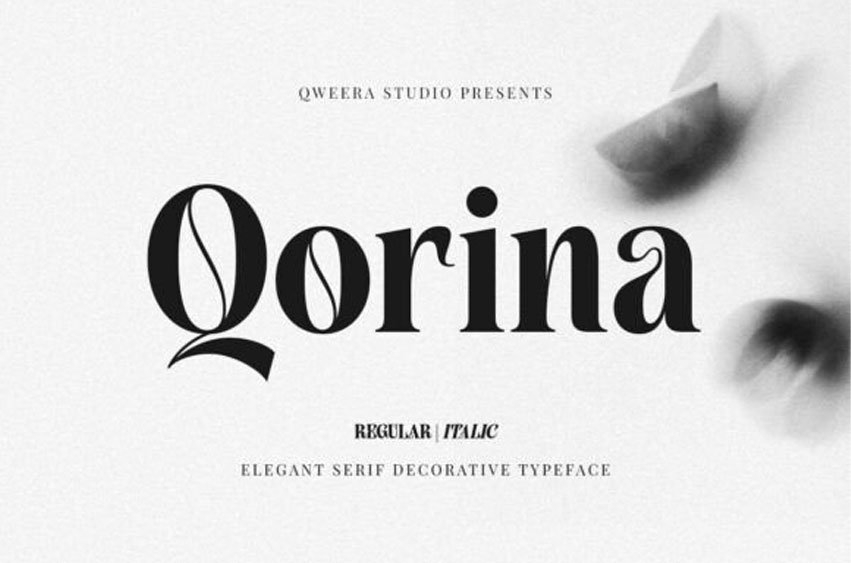
Qorina Font is more than just a font—it’s a statement of luxury and timeless elegance. With its exquisite design, attractive alternates, and ligatures, Qorina is the perfect choice for high-end branding, fashion editorials, upscale packaging, and more.
Available in both Regular and Italic versions, this font offers versatility and sophistication, making it ideal for projects that demand a touch of refinement and prestige.